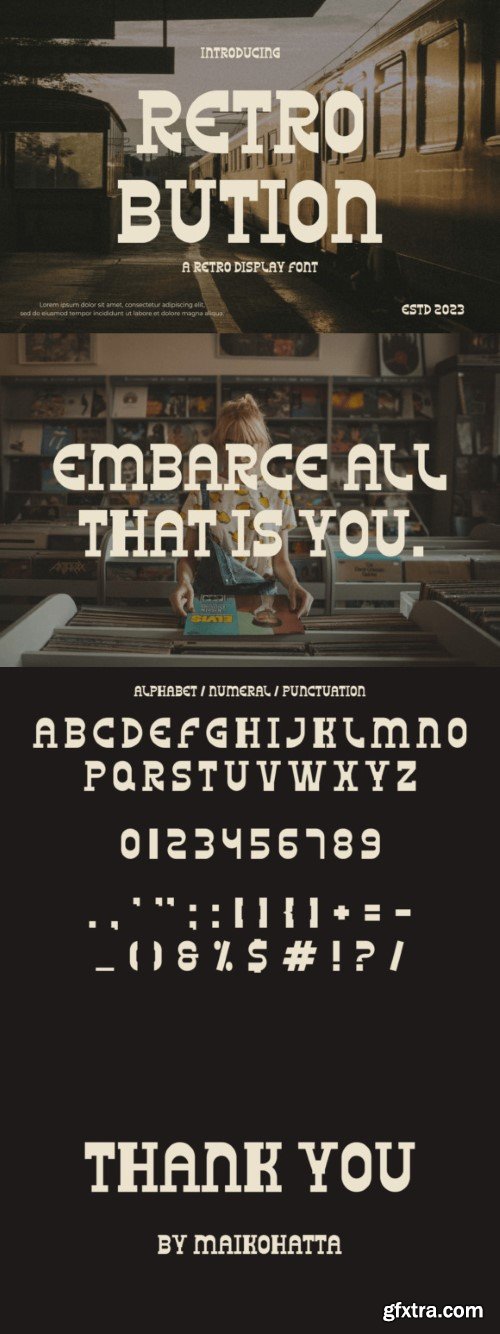
Retrobution is a cool, vintage-style display font. No matter the topic, this font will be an incredible asset to your fonts' library, as it has the potential to elevate any creation.